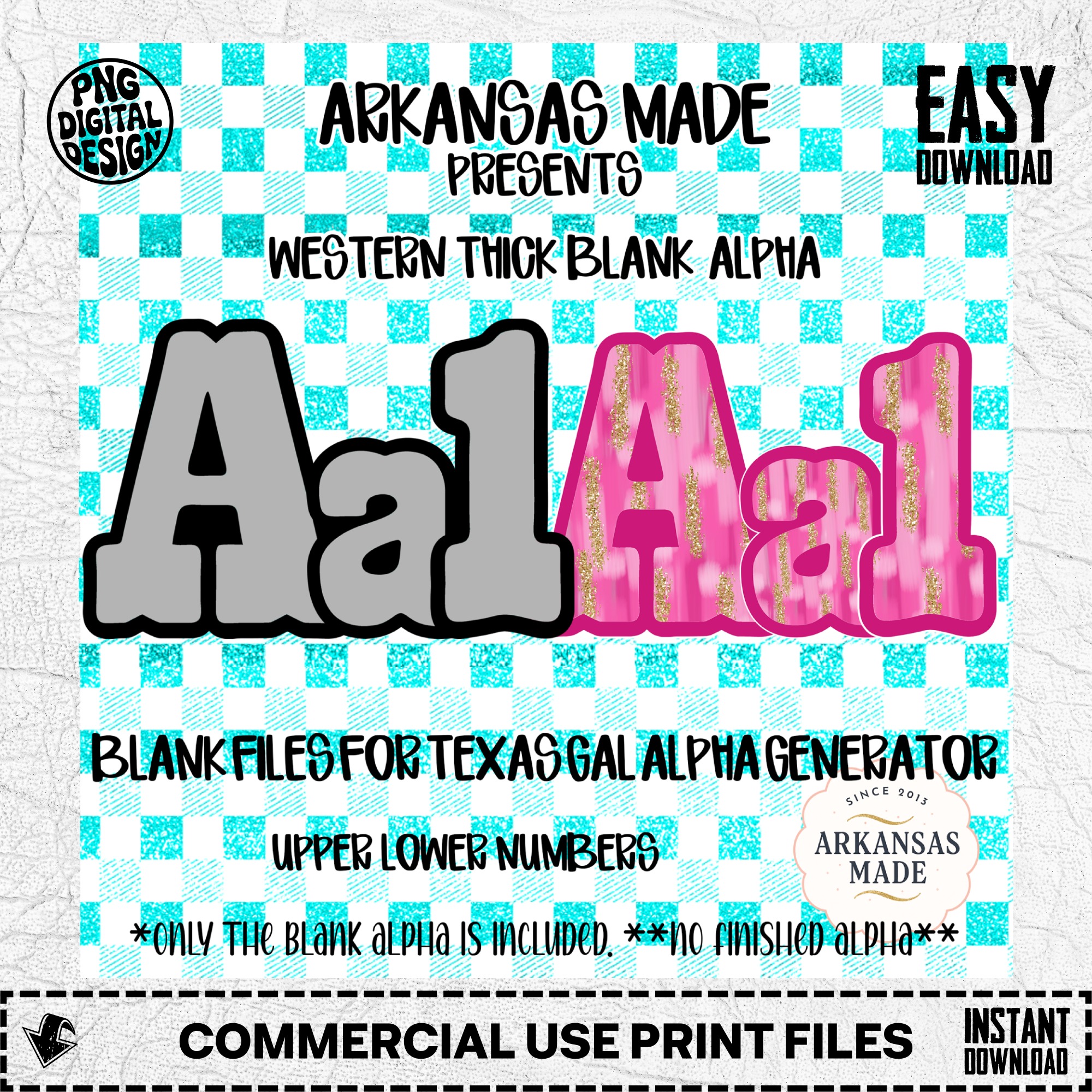
Texas Gal Blank Alpha PNGs, Western Thick Glitter Font Digital Download, DIY Sublimation Letters Numbers Craft File
Unleash your creativity with these Blank Alpha PNGs for Texas Gal Alpha Generator. Perfect for sublimation projects, this Western thick font features glitter effects. This versatile digital download offers uppercase, lowercase letters, and numbers in a trendy country style. Ideal for DIY crafters, small business owners, and anyone creating personalized Western-themed tumblers, shirts, or accessories. Elevate your Southern charm designs with this unique creative asset pack!